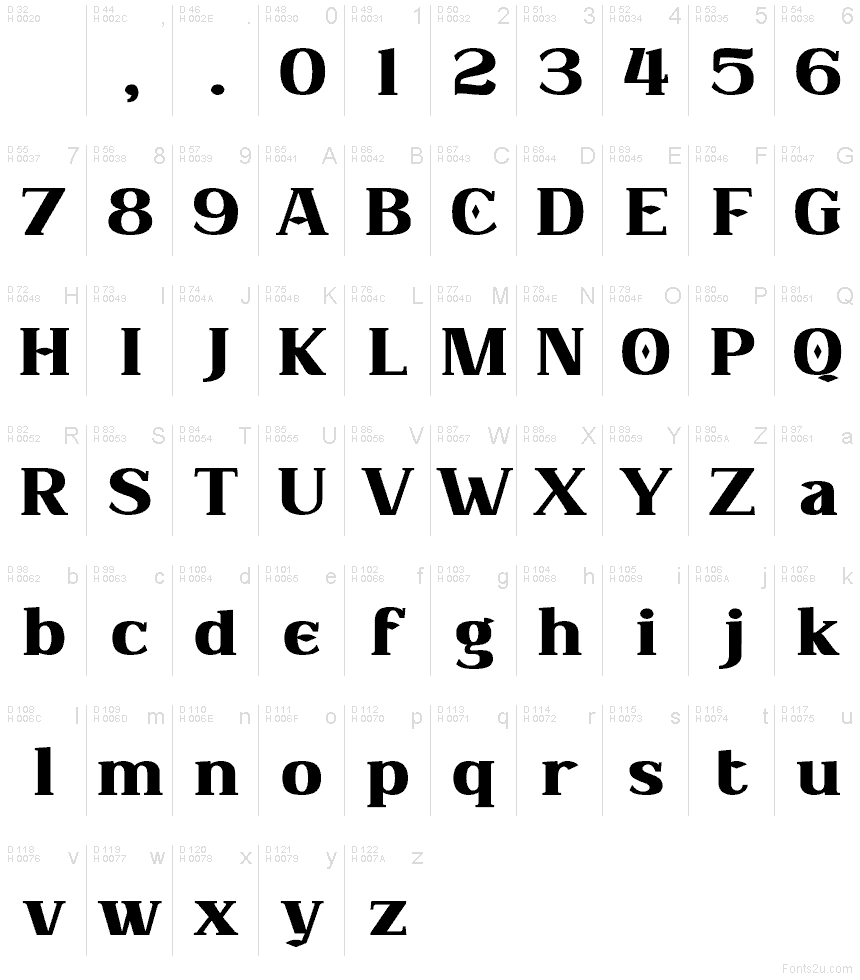
Djaman Doeloe font by Ikiiko Type is a free retro serif typeface that feels like it was pulled from an old shop sign and polished for modern use. Thick, inky strokes, tight spacing, and slightly compressed letterforms create a dark, confident texture that grabs attention without shouting. The curves are elegant yet weighty, giving headlines a sense of history and quiet authority, like a vintage book cover you’d want to keep on your shelf.
Using Djaman Doeloe, your titles instantly gain that nostalgic, old-world charm that works beautifully for café branding, heritage packaging, posters, book or zine covers, event graphics, and bold logo wordmarks. This free font really comes alive at larger sizes, where its dense shapes and sculpted serifs can be fully appreciated. Pair it with a simple geometric sans for body text to keep layouts readable while letting Djaman Doeloe handle all the character and mood.